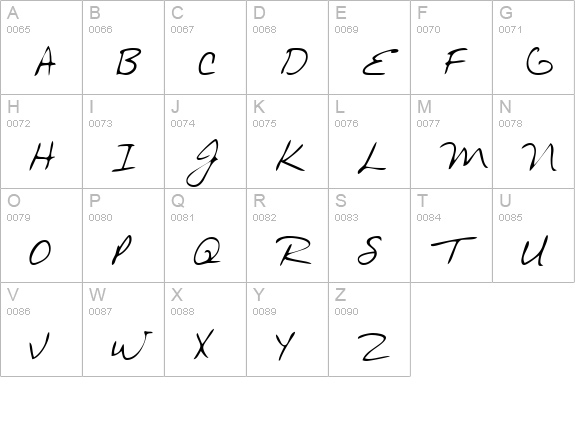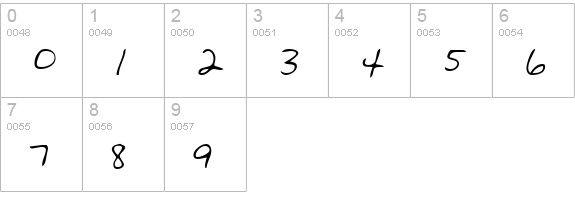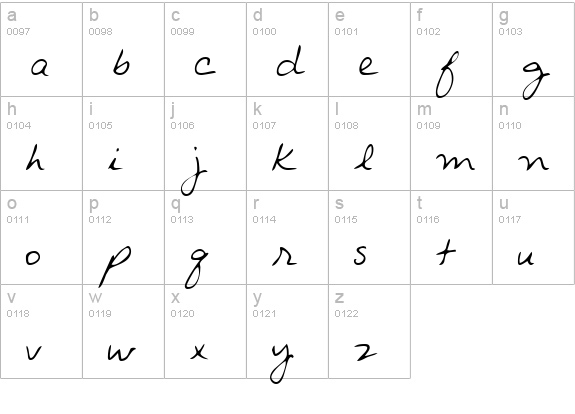
ArchiesHand Regular Font Details
ArchiesHand Regular is the standard, neutral variant in the ArchiesHand typeface family \xE2\x80\x94 well suited to general body text, paragraphs, and standard typographic work.
ArchiesHand Regular font is a delightful and playful typeface that exudes a sense of whimsy and charm. Its unique hand-drawn style makes it perfect for adding a personal touch to your projects. Whether you're designing greeting cards, invitations, or social media graphics, ArchiesHand Regular will bring a touch of fun to your designs. What makes ArchiesHand Regular even more appealing is that it is available for free download at FontsMarket.com. This means you can easily access this charming font and use it in your projects without any cost. With its smooth lines and casual elegance, ArchiesHand Regular is sure to become a favorite in your font collection. Download ArchiesHand Regular for free today at FontsMarket.com and add a touch of whimsical flair to your designs.